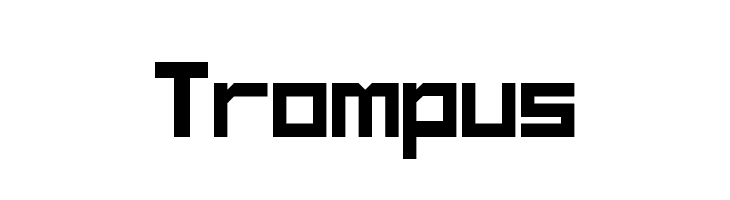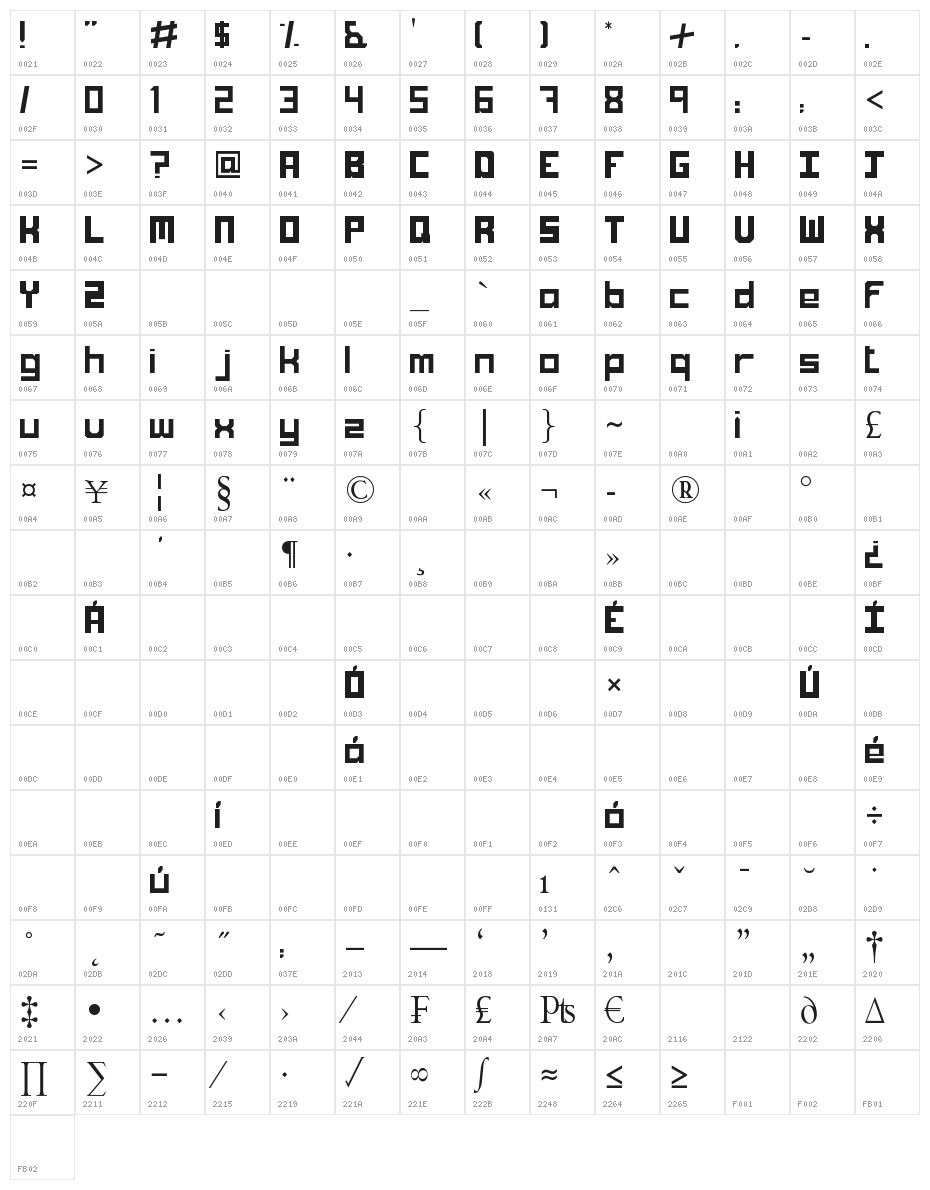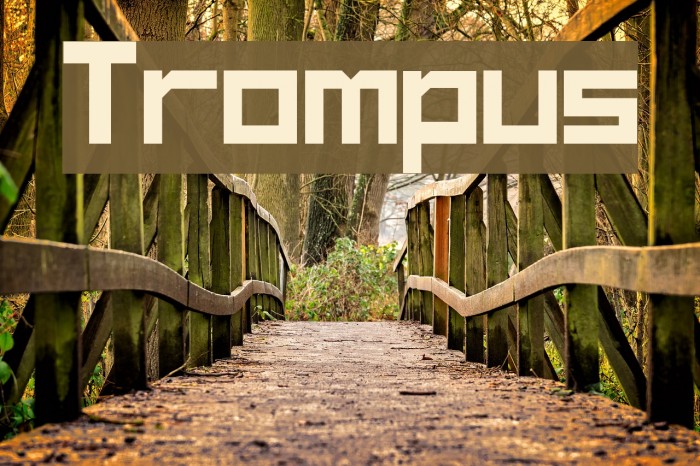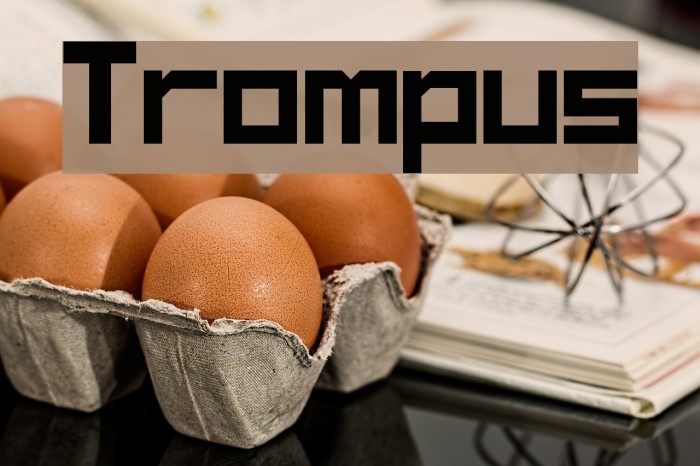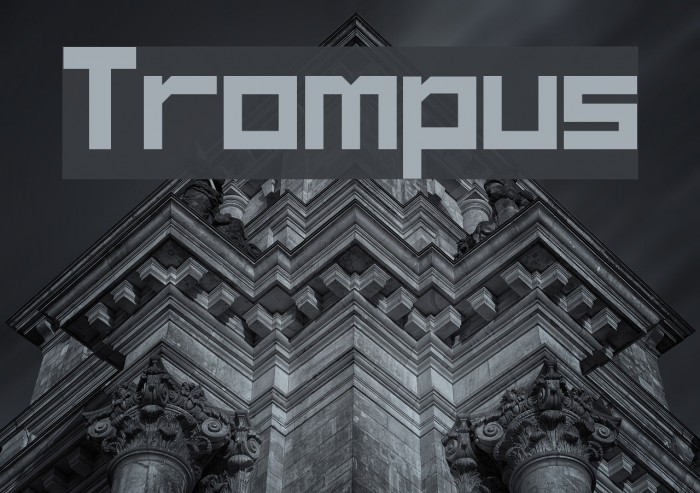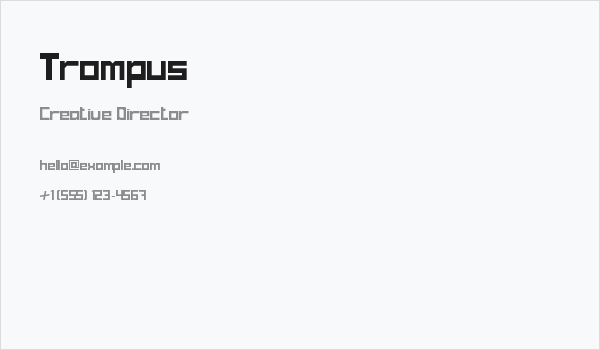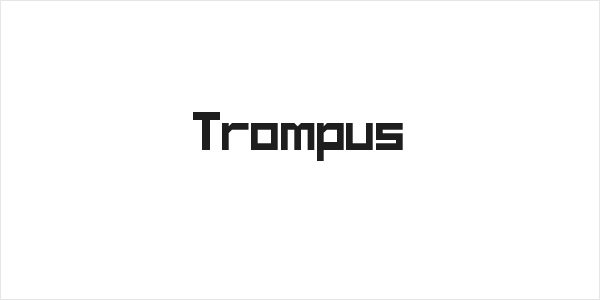
Trompus Font
Trompus Description
This font features a bold, geometric design with a modern and futuristic aesthetic. The characters are constructed with sharp angles and straight lines, giving it a blocky and robust appearance. The uppercase and lowercase letters maintain a consistent style, with a uniform height that enhances readability. The numerals and special characters follow the same geometric pattern, ensuring a cohesive look across all elements. This font's distinct style makes it suitable for projects that require a strong visual impact.
| Proposed Projects | Ideal for technology branding, video game titles, posters, and futuristic-themed designs. |